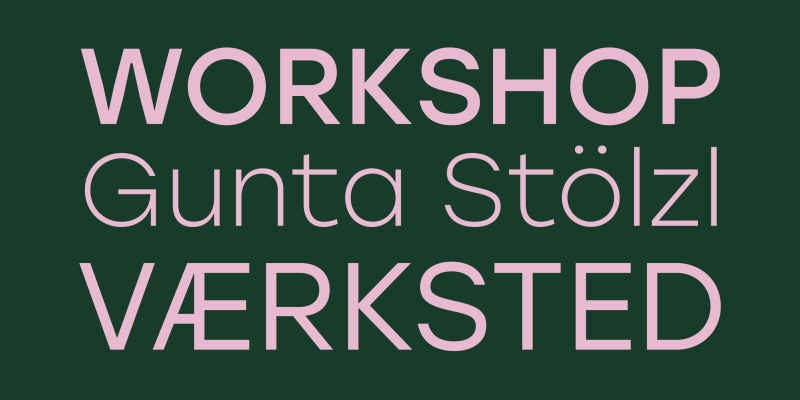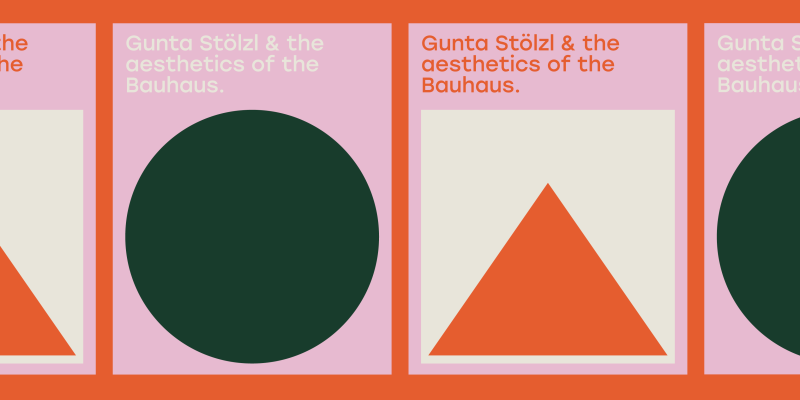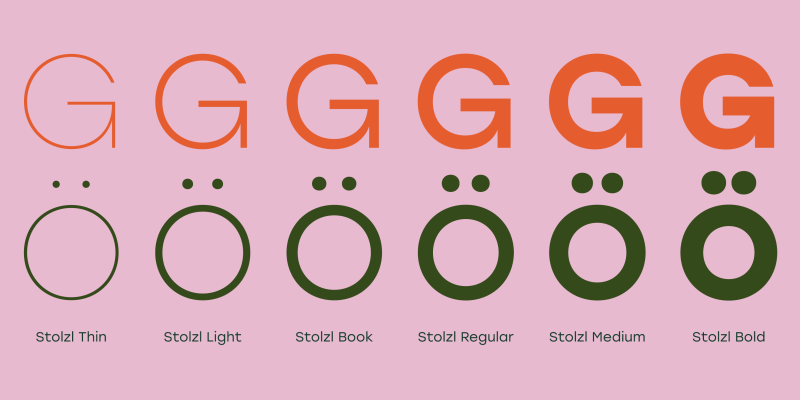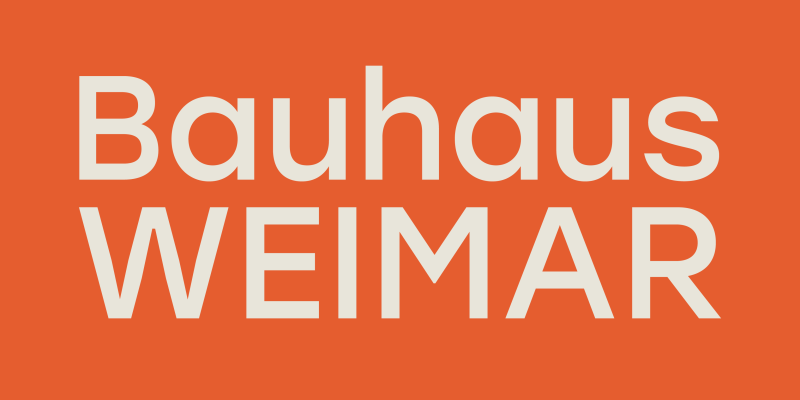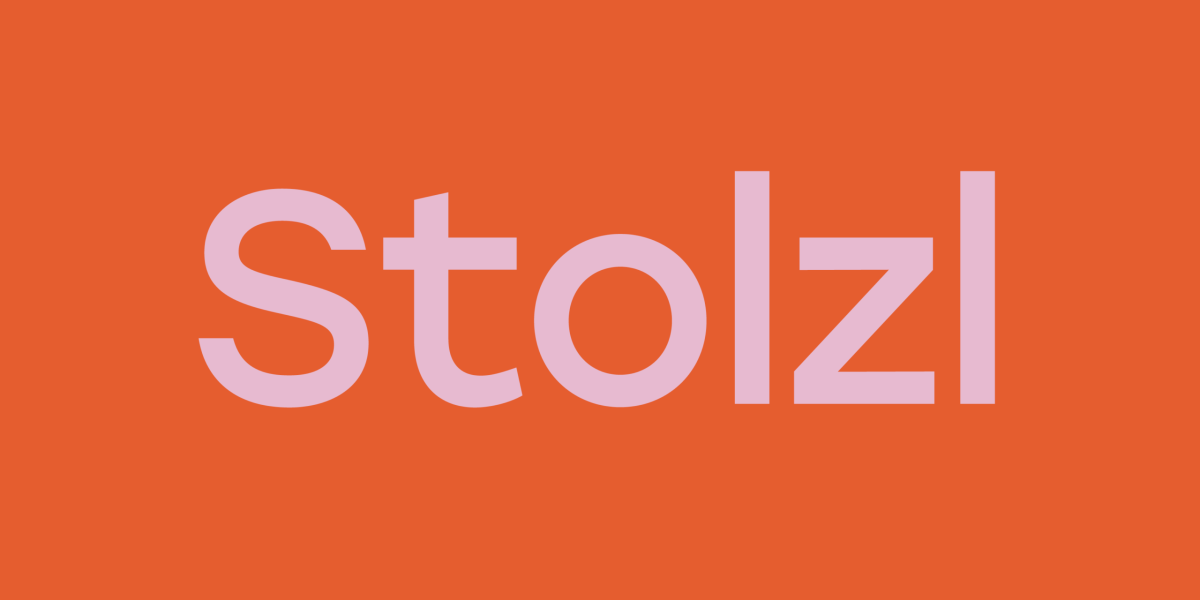
Stolzl Font
Stolzl is the text companion of the display font family, Stolzl Display, which was optically tailored to perform as a functional addition to this concept-steered font collection. Stolzl Text is a modernist interpretation of the first release, stripped of the primary stylized attributes; it is highly readable in print and on screen.
Designed to perform at various sizes, Stolzl Text is an excellent addition to the type collection. As well as Latin-based languages, the type family also supports Cyrillic. Other details include six weights, 486 characters, manually edited kerning and OpenType features. For a display alternative to Stolzl, visit Stolzl Display.
Stolzl Font is a Display Fonts font that brings a professional and versatile look to your projects. Stolzl is the text companion of the display font family, Stolzl Display, which was optically tailored to perform as a functional addition to this concept-steered font collection.